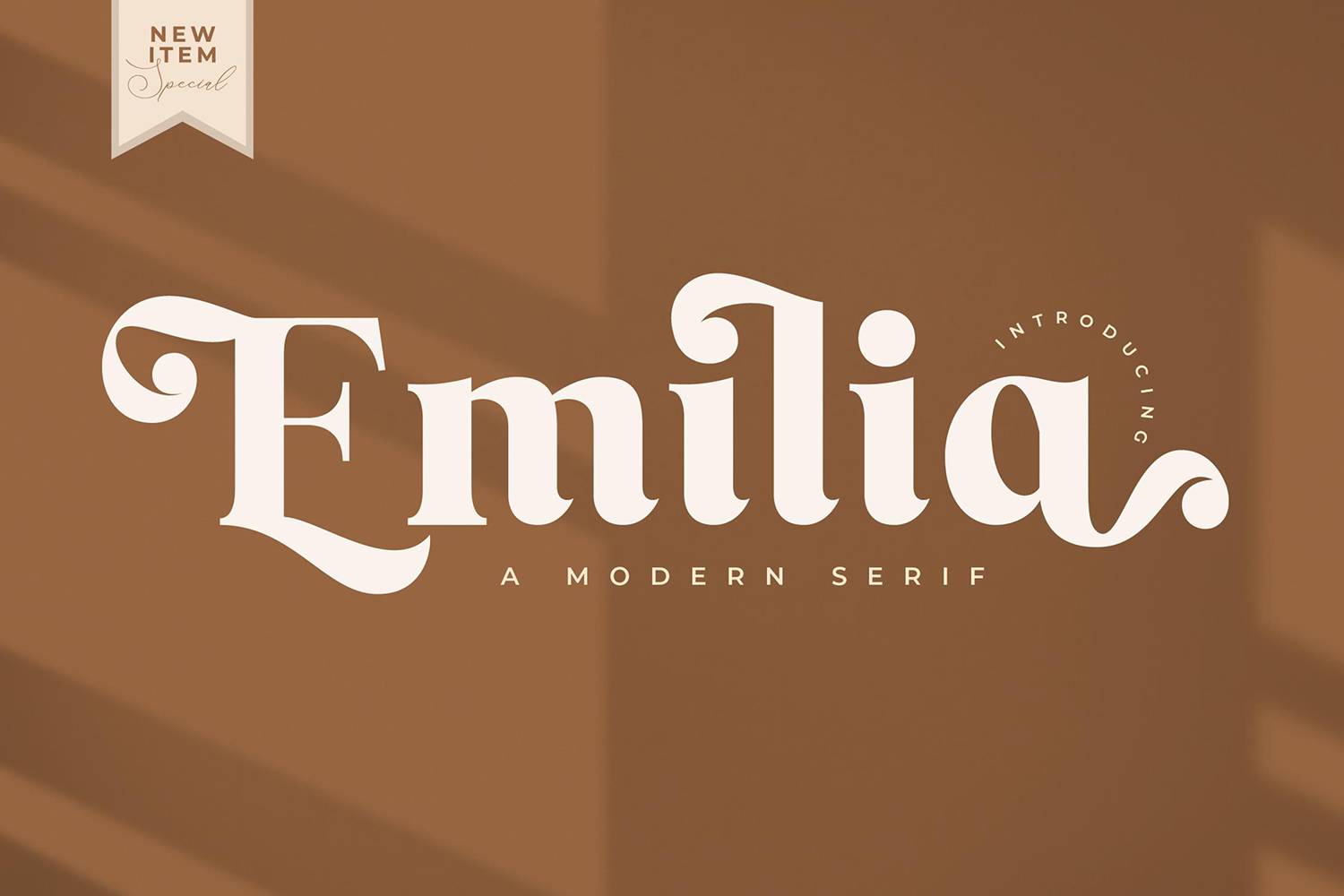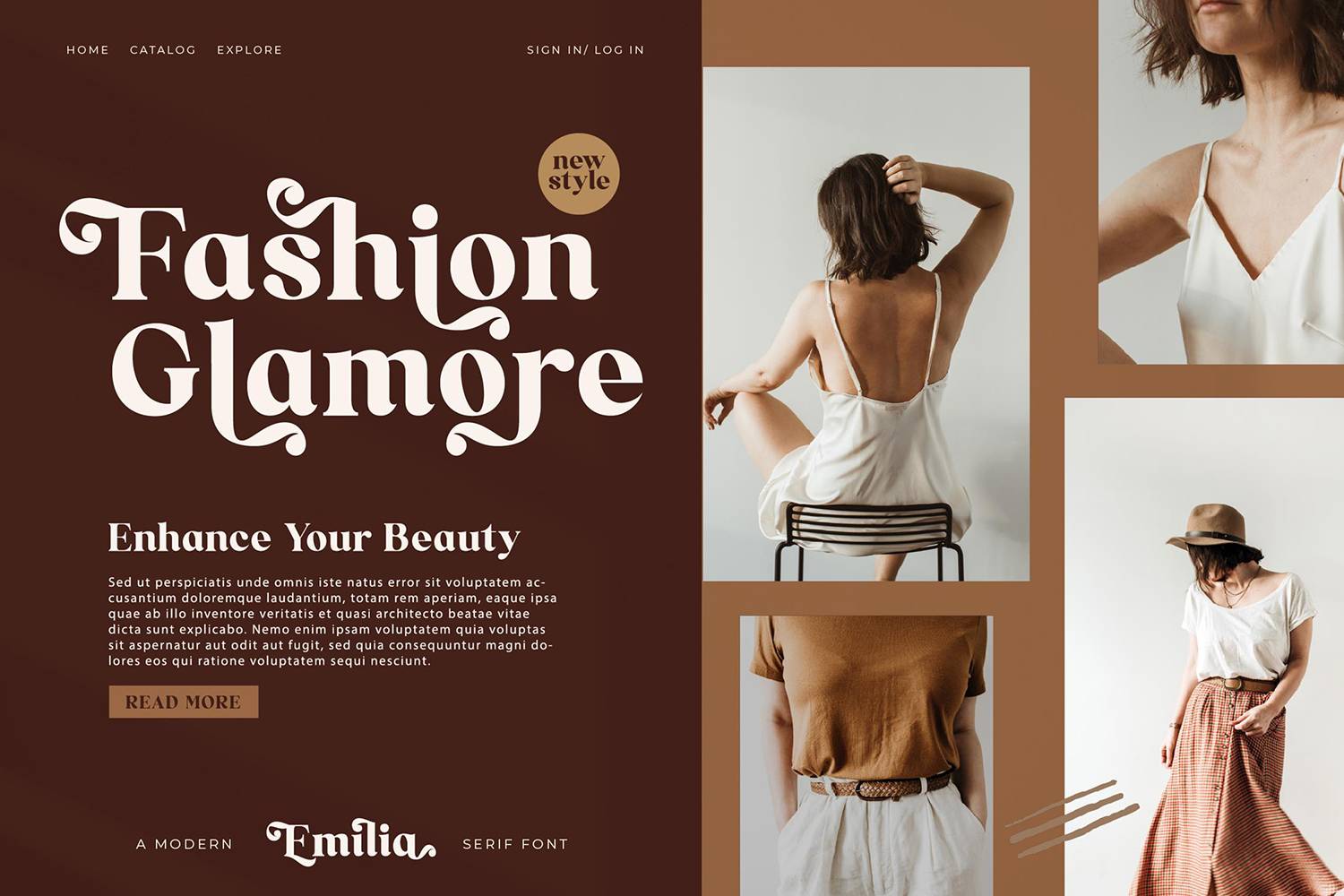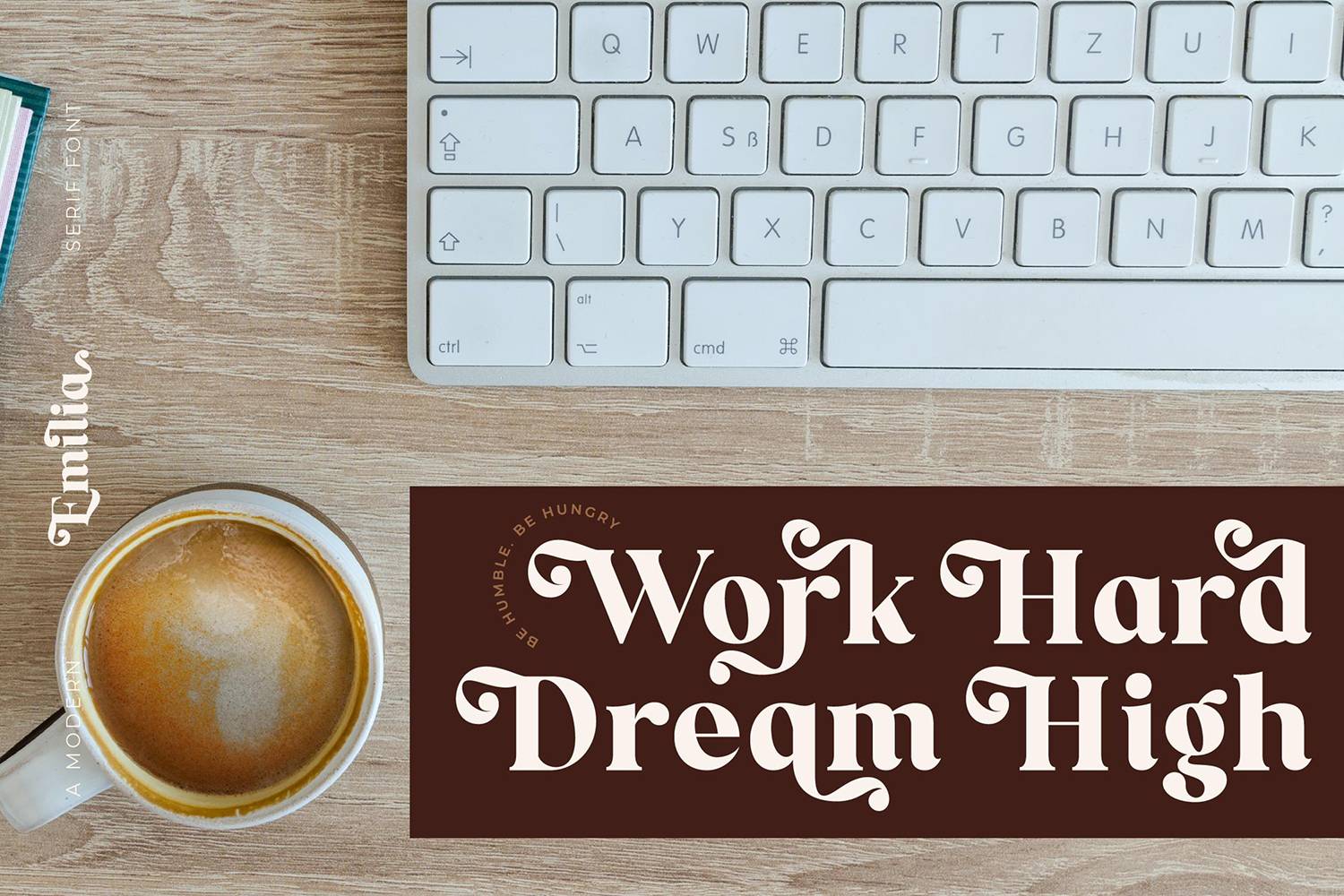
Emilia is a bold serif font with a strong contrast between thick and thin strokes, featuring elegant bracketed serifs and classic transitional proportions. Its refined, high-contrast design with distinctive letterforms like the single-story ‘a’ and unique ampersand makes it ideal for sophisticated branding, editorial headlines, and luxury packaging where a timeless and confident presence is desired. This font combines tradition with a modern flair, adding elegance and clarity to any design.
Emilia Font
About Emilia Font